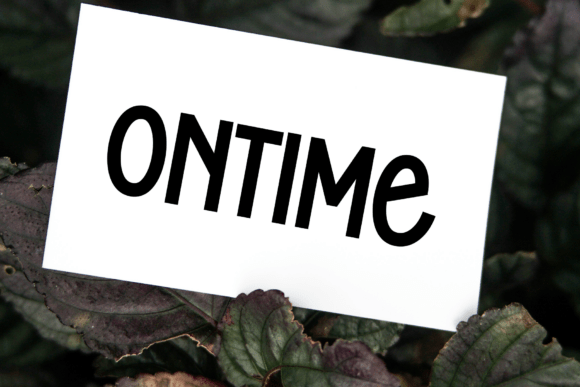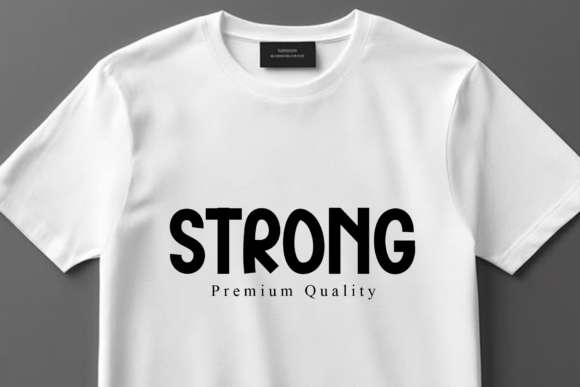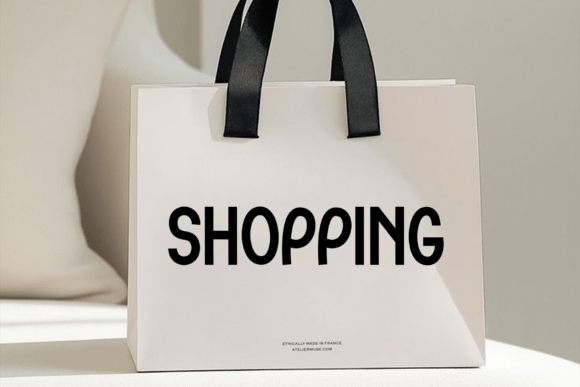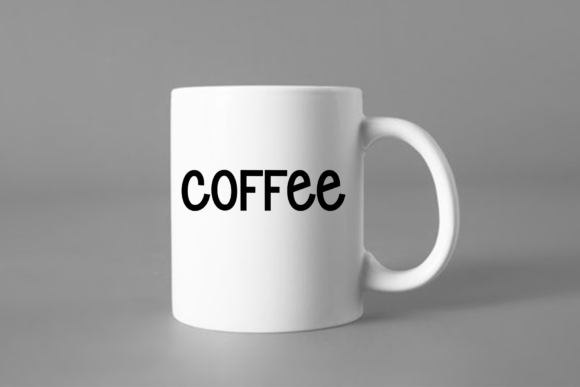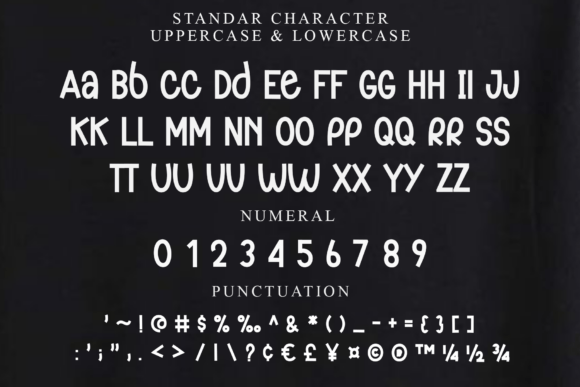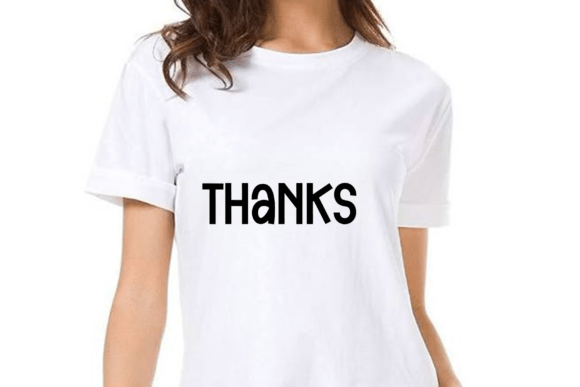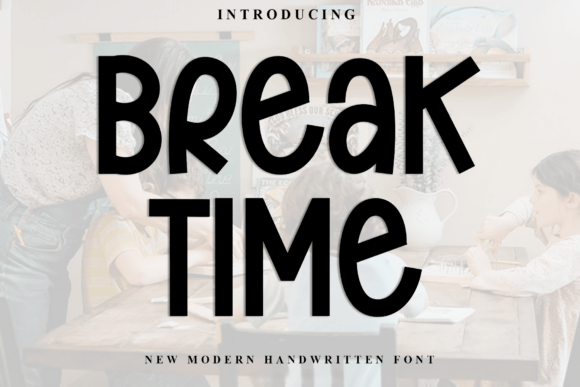
Introducing Break Time Font: The Perfect Blend of Casual and Creative
In the world of typography, fonts play a crucial role in conveying the tone and personality of a design. If you’re looking for a font that exudes warmth, friendliness, and a touch of playfulness, look no further than Break Time Font. This casual and creative display font is perfect for personal projects, invitations, social media graphics, and more.
The Characteristics of Break Time Font
Break Time Font boasts round, playful strokes that create a relaxed and approachable feel. Its charming, hand-drawn aesthetic adds a fun and unique touch to any design, making it perfect for designers and crafters who want to add a personal touch to their work. The font’s casual and creative vibe makes it ideal for a wide range of projects, from social media graphics to invitations and personal projects.
What Makes Break Time Font Special?
So, what sets Break Time Font apart from other fonts? Here are a few key features that make it a standout:
- Playful strokes: The font’s round, playful strokes create a relaxed and approachable feel that’s perfect for casual designs.
- Hand-drawn aesthetic: The font’s charming, hand-drawn aesthetic adds a fun and unique touch to any design.
- Warm and friendly: Break Time Font exudes warmth and friendliness, making it perfect for designs that need a personal touch.
- Versatile: The font is perfect for a wide range of projects, from social media graphics to invitations and personal projects.
How to Use Break Time Font in Your Designs
Break Time Font is incredibly versatile and can be used in a wide range of designs. Here are a few ideas to get you started:
- Social media graphics: Use Break Time Font to add a personal touch to your social media graphics, such as Instagram posts, Facebook updates, and Twitter headers.
- Invitations: The font’s playful and creative vibe makes it perfect for invitations, such as birthday party invites, wedding invites, and baby shower announcements.
- Personal projects: Break Time Font is perfect for personal projects, such as scrapbooking, journaling, and crafting.
- Branding: The font’s unique and creative aesthetic makes it perfect for branding projects, such as logos, business cards, and letterheads.
Tips for Getting the Most Out of Break Time Font
Here are a few tips for getting the most out of Break Time Font:
- Experiment with colors: Break Time Font looks great in a wide range of colors, so don’t be afraid to experiment and find the perfect hue for your design.
- Play with font sizes: The font’s playful strokes look great in a variety of font sizes, so try experimenting with different sizes to add visual interest to your design.
- Add texture and patterns: Break Time Font looks great with texture and patterns, so try adding a subtle texture or pattern to your design to give it an extra boost.
Break Time Font is a casual and creative display font that exudes warmth and friendliness. Its round, playful strokes create a relaxed and approachable feel, perfect for personal projects, invitations, and social media graphics. With its charming, hand-drawn aesthetic and versatile design, Break Time Font is perfect for designers and crafters who want to add a personal touch to their work. So why not give it a try and see how it can elevate your designs?
Break Time Font: The Perfect Font for Designers and Crafters
In conclusion, Break Time Font is a must-have font for designers and crafters who want to add a personal touch to their work. Its playful, creative, and versatile design makes it perfect for a wide range of projects, from social media graphics to invitations and personal projects. So why not give it a try and see how it can elevate your designs?